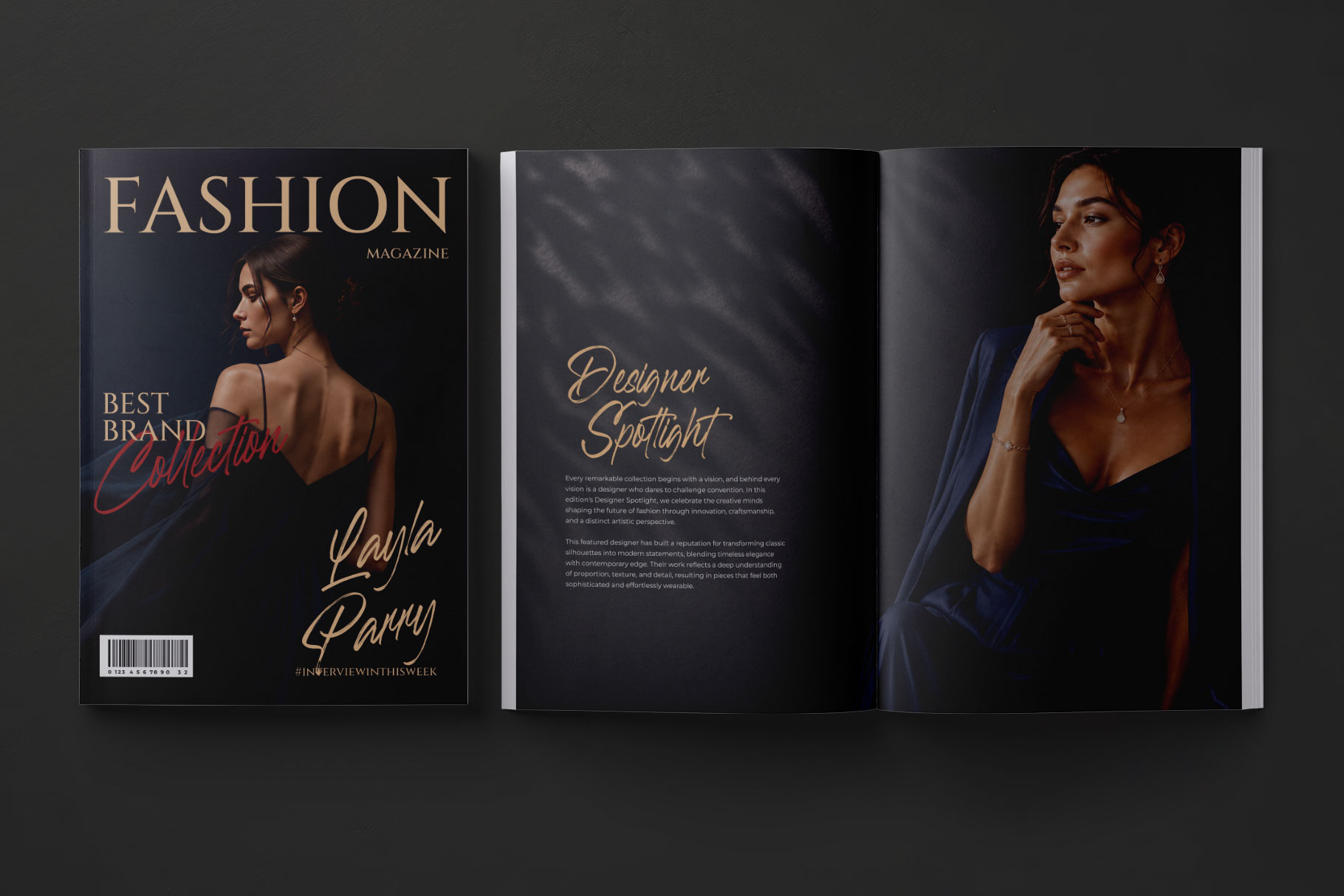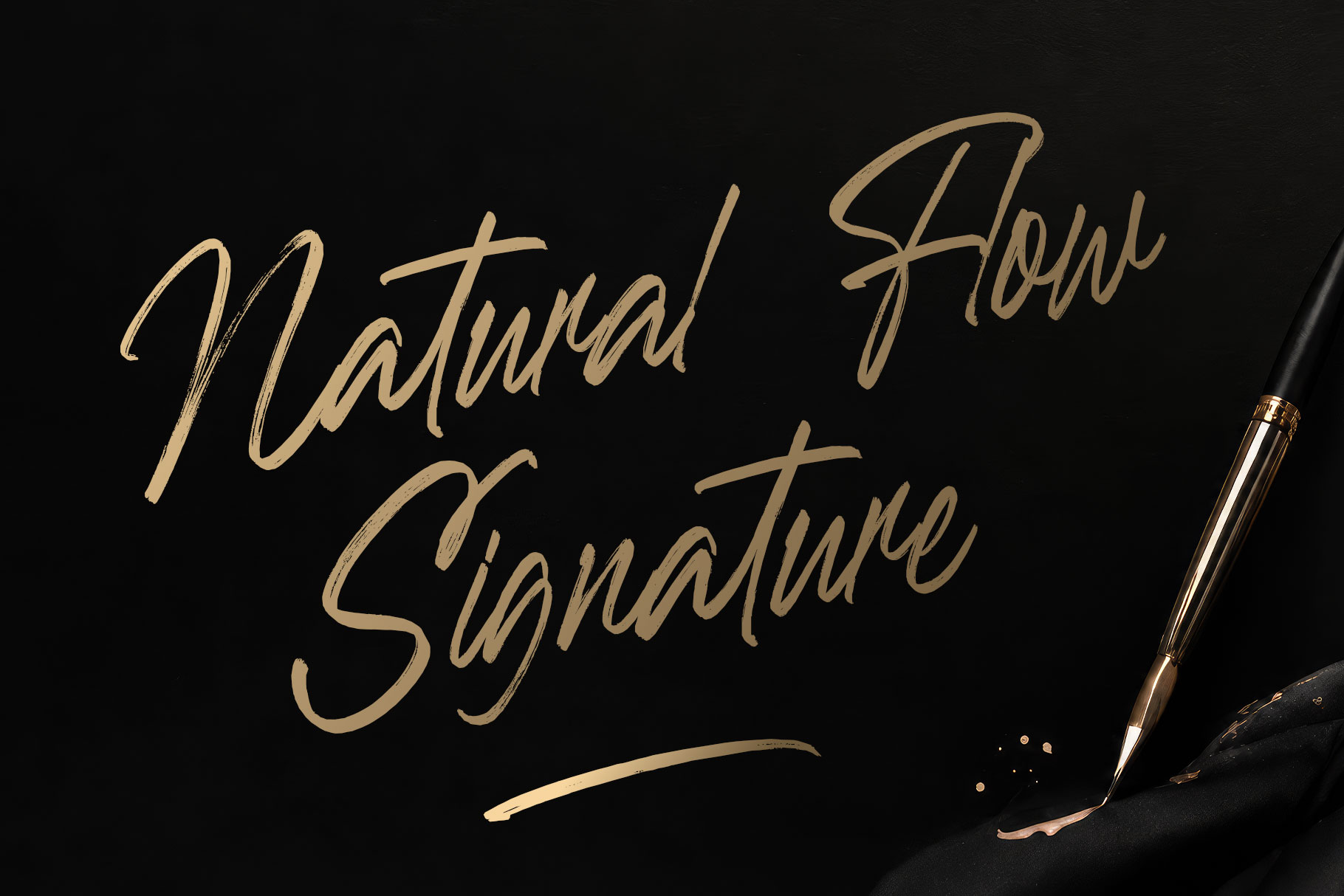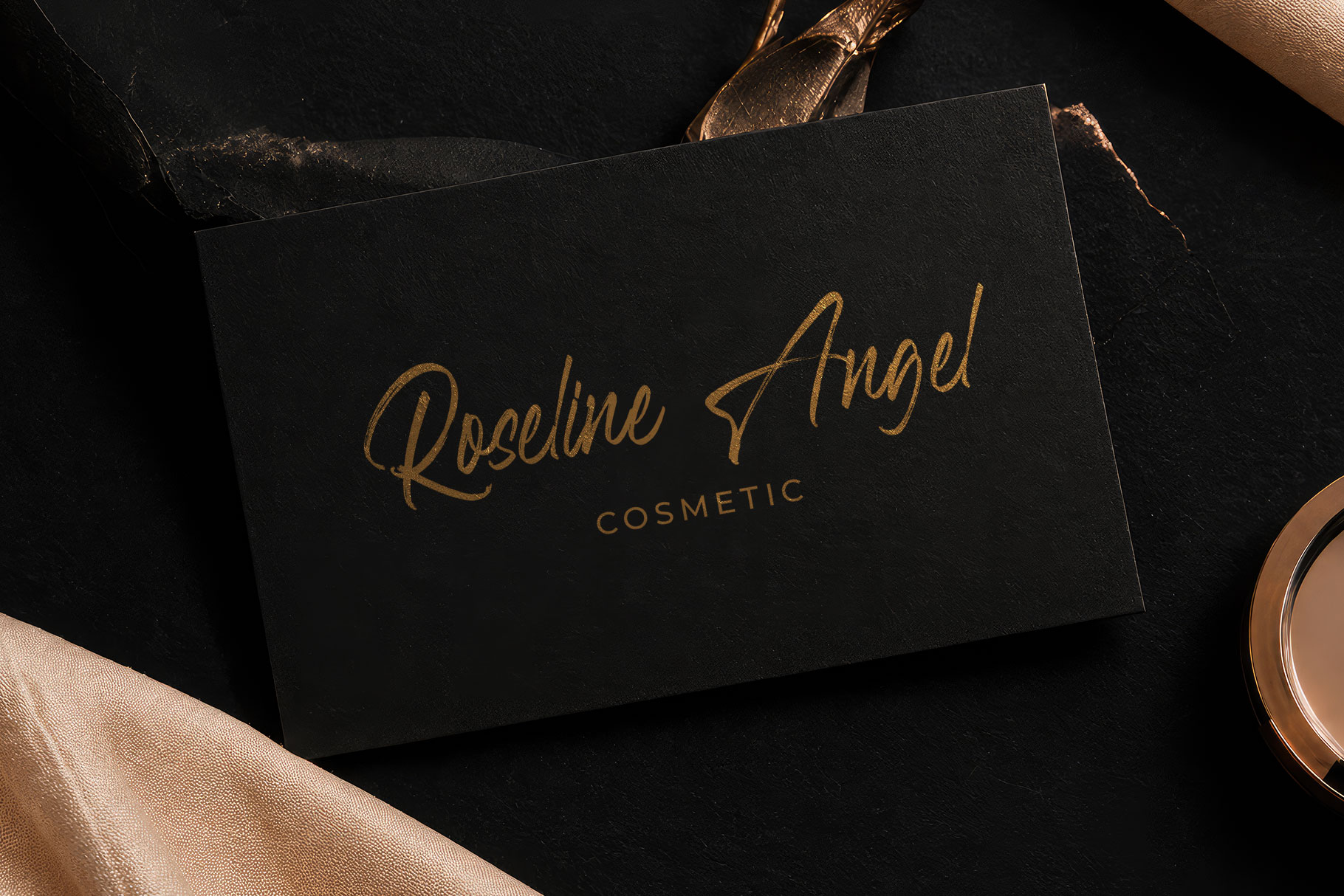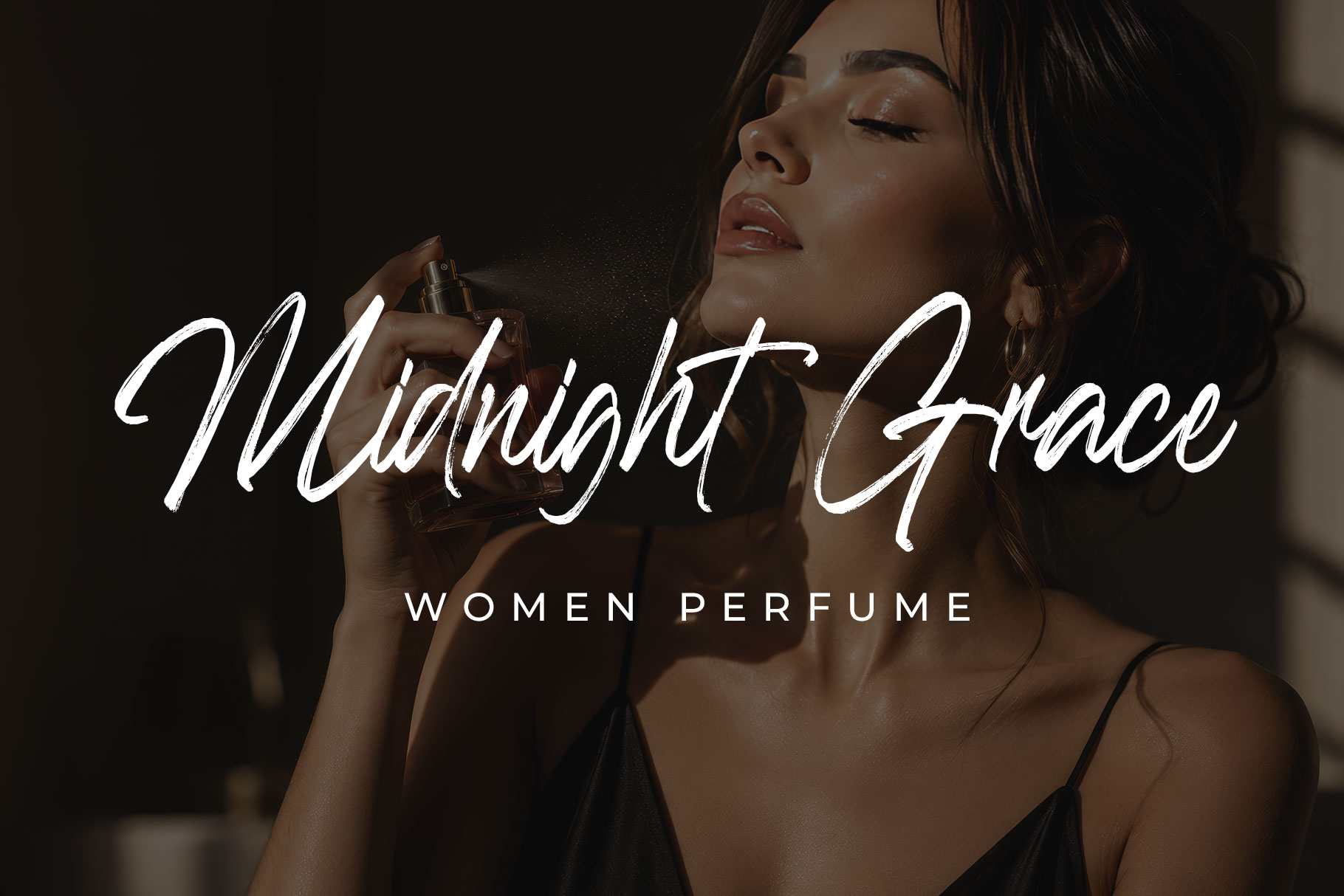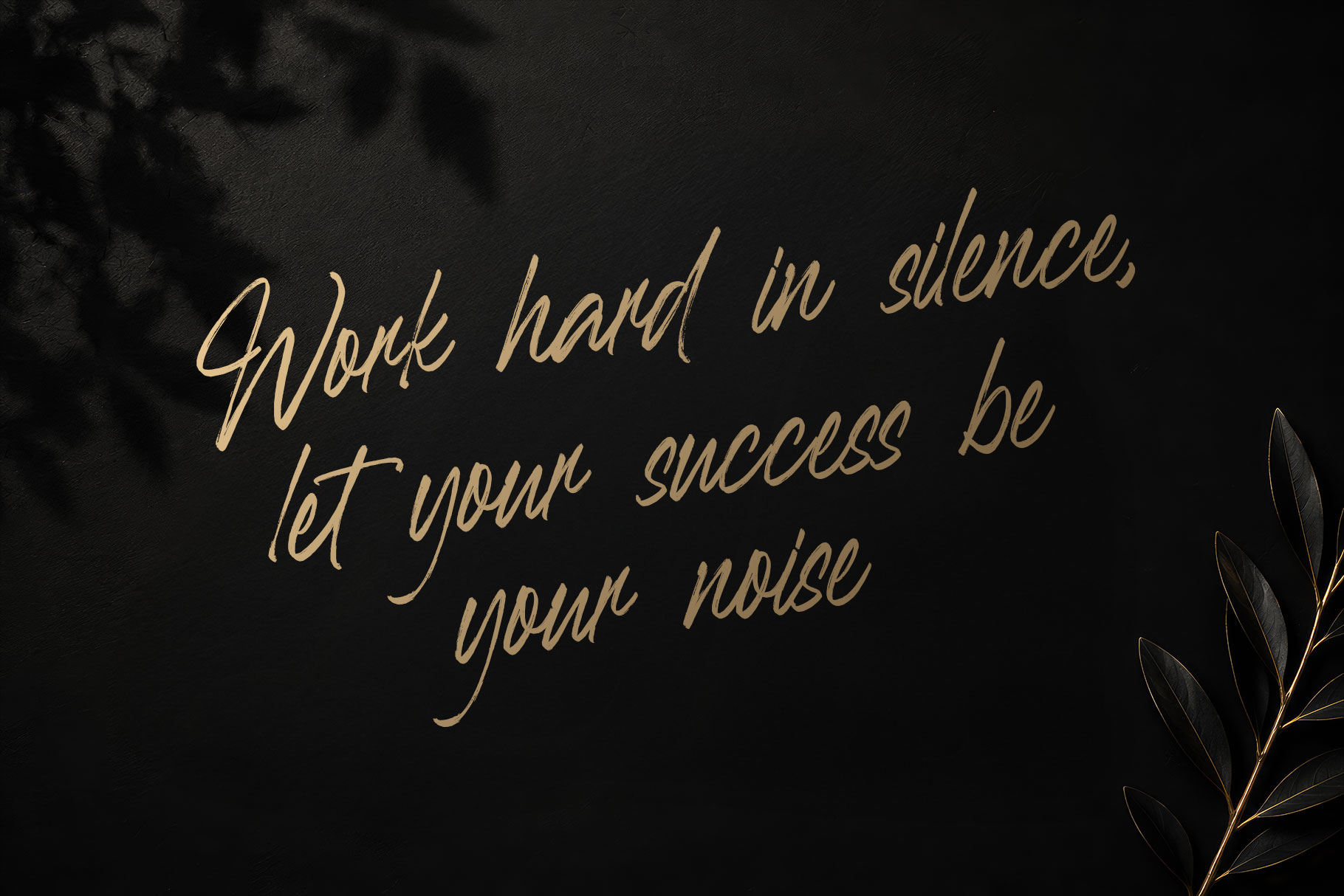
Britania Darling is elegant signature brush font captures the perfect balance between artistic freedom and refined sophistication. Designed with expressive brush strokes and fluid handwritten movements, it delivers a natural signature appearance that feels both personal and luxurious. Every letter flows effortlessly into the next, creating a sense of rhythm and authenticity that mirrors the beauty of real handwritten calligraphy.
Britania Darling Elegant Brush Font